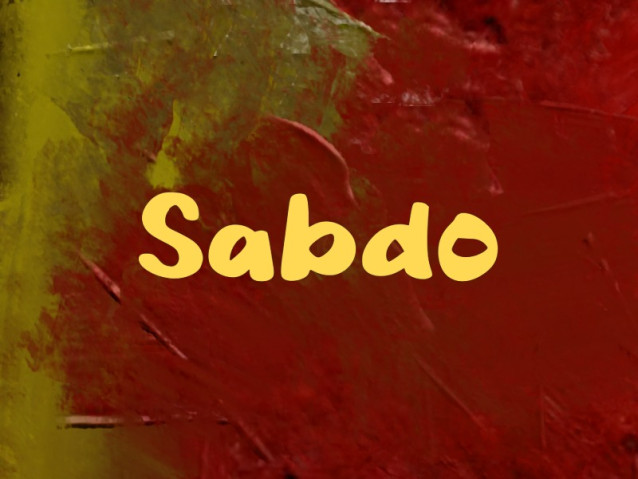
Sabdo Font
Sabdo Font is a warm, cheerful display font designed to bring a sense of fun and approachability to your designs. With its soft curves, rounded edges, and slightly irregular letterforms, Sabdo creates a handcrafted, organic feel that instantly captures attention.
Perfect for headlines, posters, children’s books, branding, and social media graphics, Sabdo adds personality without sacrificing readability. Its bold and smooth appearance makes it especially suitable for vibrant, colorful designs where you want the typography to stand out and feel inviting.
Whether you’re working on a creative project or building a playful brand identity, Sabdo delivers a unique balance of charm and clarity that helps your message shine.